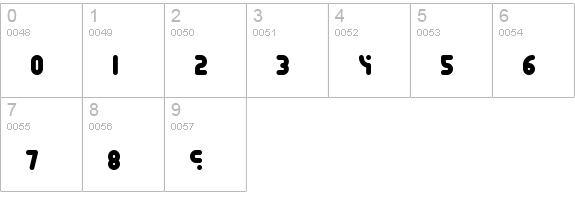
Whatever BRK Font Details
Whatever BRK font is a unique and stylish typeface that offers a wide range of creative possibilities. This font exudes a modern and edgy vibe, making it perfect for adding a touch of contemporary flair to any design project. With its bold and eye-catching letterforms, Whatever BRK font is sure to grab attention and make a lasting impression. Whether you're designing a logo, a poster, or any other graphic element, this font will elevate your work to the next level. One of the best things about Whatever BRK font is that it is completely free. Yes, you read that right! This incredible font can be downloaded at absolutely no cost, making it accessible to designers of all levels. Whatever BRK font is freely available to download at FontsMarket.com, a trusted source for high-quality fonts. Don't miss out on the opportunity to enhance your designs with the unique and captivating Whatever BRK font. Download it for free today and let your creativity soar!